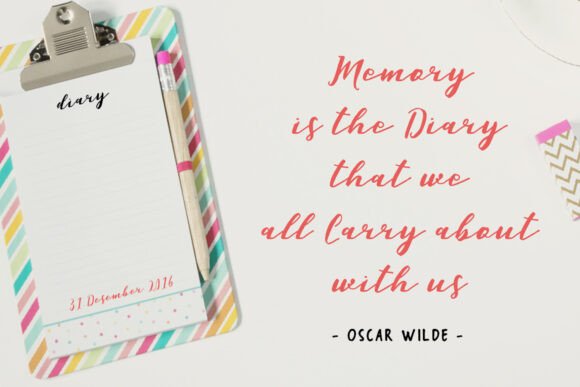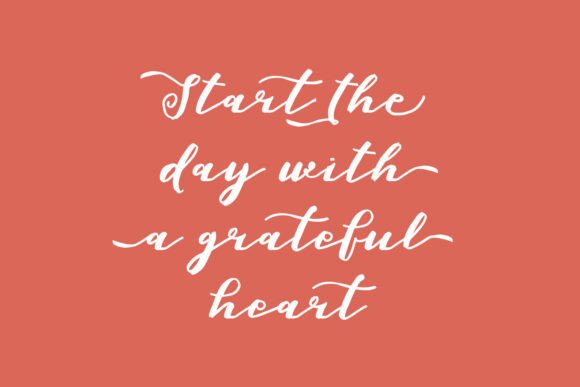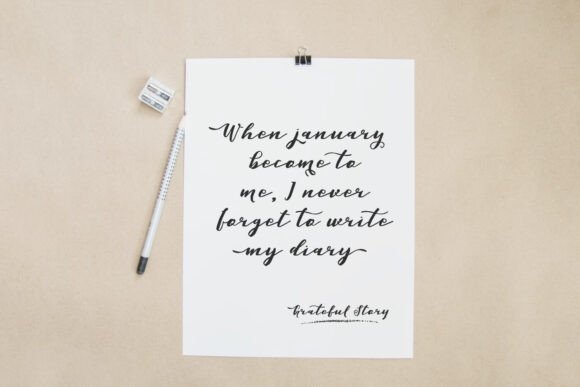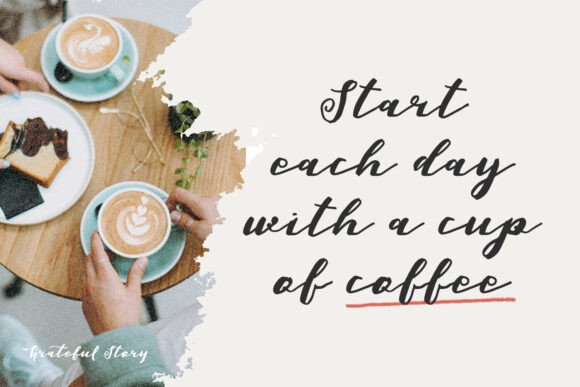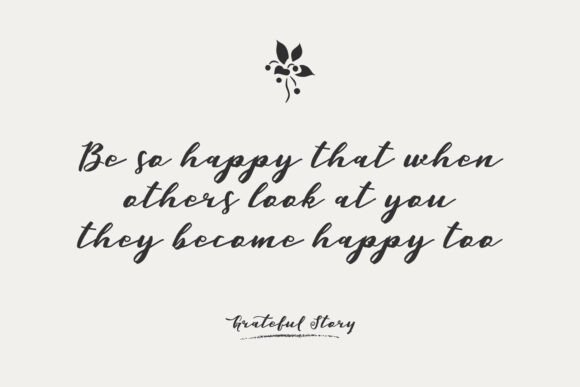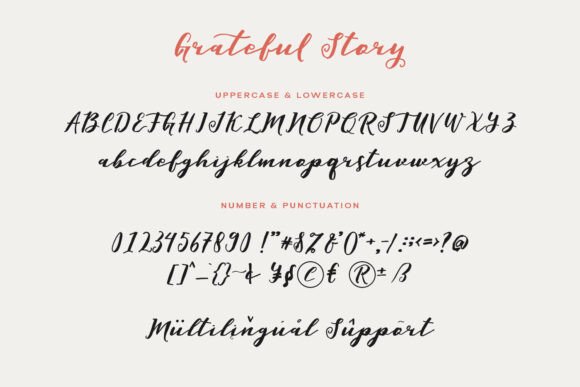
Grateful Story Font: A Beautiful Handwritten Script Font for Your Creative Projects
Are you a designer or crafter looking for a unique and charming font to add a personal touch to your creative projects? Look no further than the Grateful Story Font, a beautiful handwritten script font that is sure to delight. With its charming, cheerful characters that seem to dance along the baseline, this font is perfect for a wide range of projects, from handmade crafts to digital designs.
What Makes Grateful Story Font So Special?
So, what sets Grateful Story Font apart from other fonts? For starters, it’s a handwritten script font that has been carefully crafted to evoke a sense of joy and playfulness. The characters are designed to be highly legible, yet still have a whimsical, hand-crafted feel that will add a touch of personality to any project.
Grateful Story Font is a versatile font that is perfect for a wide range of creative projects. Designers will love using it for:
- Logos and branding projects
- Web design and development projects
- Print-on-demand products, such as t-shirts and mugs
Crafters, on the other hand, will adore using Grateful Story Font for:
- Handmade cards and invitations
- DIY crafts, such as scrapbooking and journaling
- Custom vinyl decals and signs
- Hand-painted signs and artwork
Key Features of Grateful Story Font
Here are just a few of the key features that make Grateful Story Font so special:
- Beautiful, handwritten script font
- Charming, cheerful characters that seem to dance along the baseline
- Highly legible, yet still has a whimsical, hand-crafted feel
- Perfect for a wide range of creative projects, from handmade crafts to digital designs